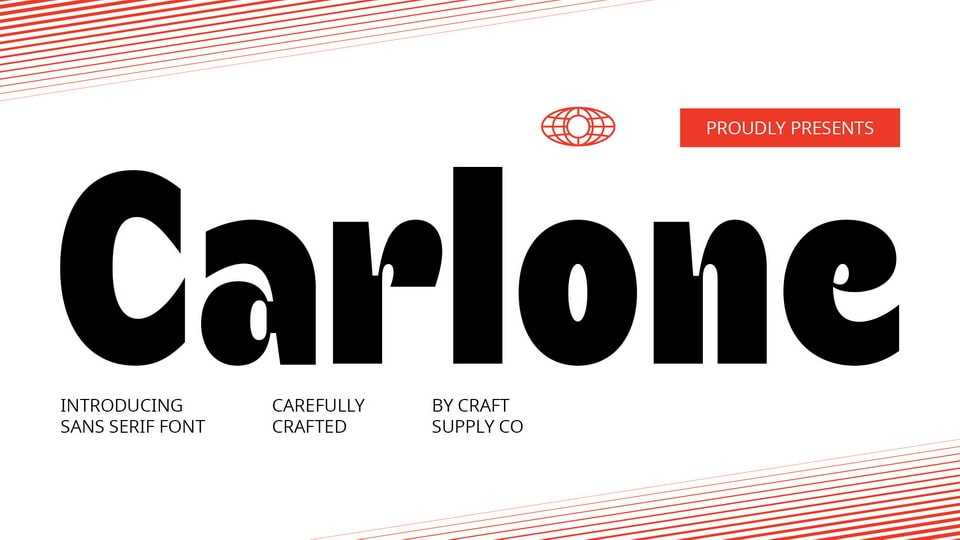
Download Carlone font, a bold sans serif typeface characterized by its strong and prominent features. With thick strokes and a modern design, it conveys a bold and impactful impression.
Designer: Craft Supply Co